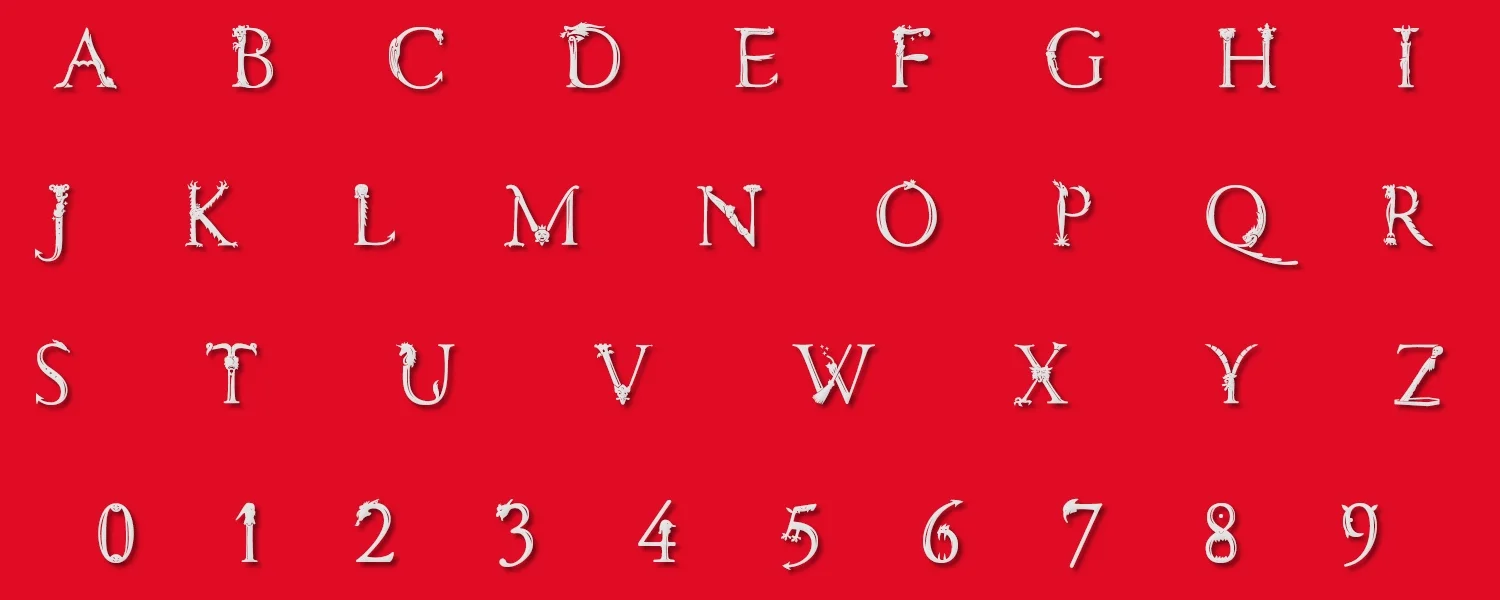
Etymonster Mistnake
Monster Mistake Font is perfect for Halloween designs, horror movie posters, spooky party invitations, children's monster-themed branding, playful Halloween packaging, costume shop marketing, horror game graphics, creative Halloween social media posts, quirky product labels, fun monster merchandise, themed entertainment materials, and any design project requiring a playfully frightening aesthetic.
What makes Monster Mistake Font exciting is its perfectly imperfect character that combines spooky elements with playful charm. The font's deliberately distressed and monstrous letterforms create an engaging balance between scary and fun, making it ideal for projects that want to entertain rather than truly frighten. Its unique personality captures attention immediately while maintaining readability, giving designers a versatile tool for creating memorable Halloween and horror-themed content that appeals to all ages.
The Monster Mistake Font family typically includes uppercase and lowercase characters, numerals, punctuation marks, and decorative monstrous elements that amplify its spooky playfulness.